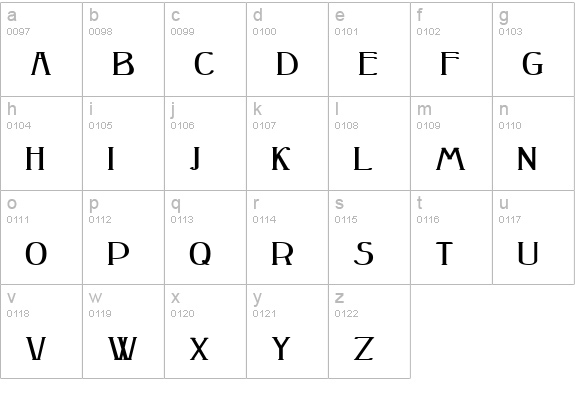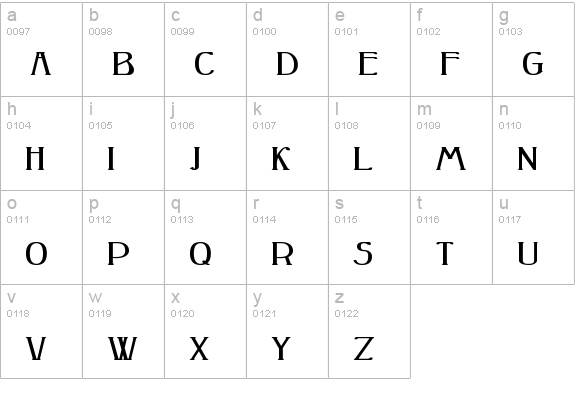
Peake Bold Font Details
Peake Bold is a strong, high-contrast variant in the Peake typeface family \xE2\x80\x94 well suited to headlines, attention-grabbing titles, and strong calls-to-action.
Peake Bold is a striking and versatile font that commands attention with its bold and powerful presence. Its strong and assertive letterforms make it the perfect choice for headlines, titles, and any design project that requires a bold statement. With its clean lines and distinct character shapes, Peake Bold exudes confidence and professionalism. Its bold weight ensures legibility and readability even at smaller sizes, making it an excellent choice for both print and digital media. Featuring a modern and timeless design, Peake Bold adds a touch of sophistication to any project. Its carefully crafted letterforms are both elegant and impactful, making it an ideal choice for high-end branding, packaging, and editorial design. One of the best features of Peake Bold is that it is free to download at FontsMarket.com. This means that designers and creatives can easily access this exceptional font without any cost. With its availability as a free font, Peake Bold opens up endless possibilities for design projects, whether it's for personal or commercial use. Download Peake Bold for free at FontsMarket.com and experience the power and versatility this font brings to your designs. Let Peake Bold be the bold statement your projects deserve.